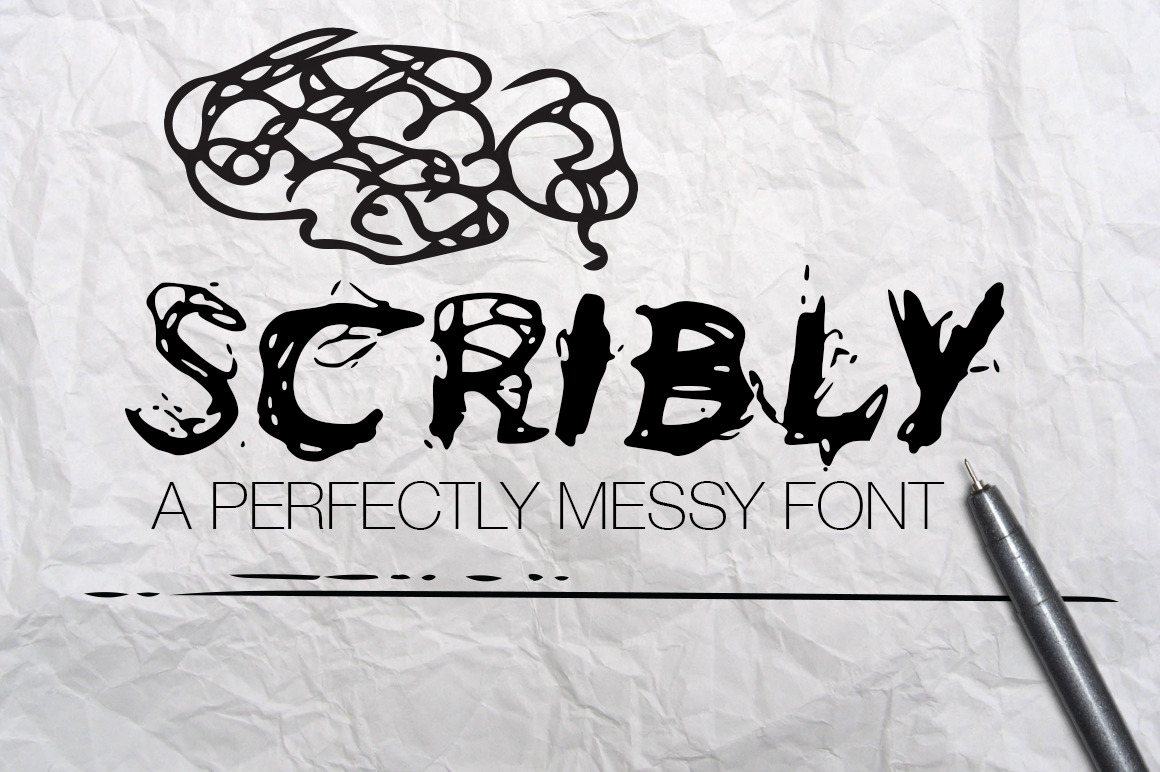
Scribly - a perfectly messy font
Introducing Scribly, the perfectly messy font that would make the best OCD designer go mad. Can't bring yourself to let your hair down and make your own mess? Scribly's got you covered.
Loosen up and have fun.